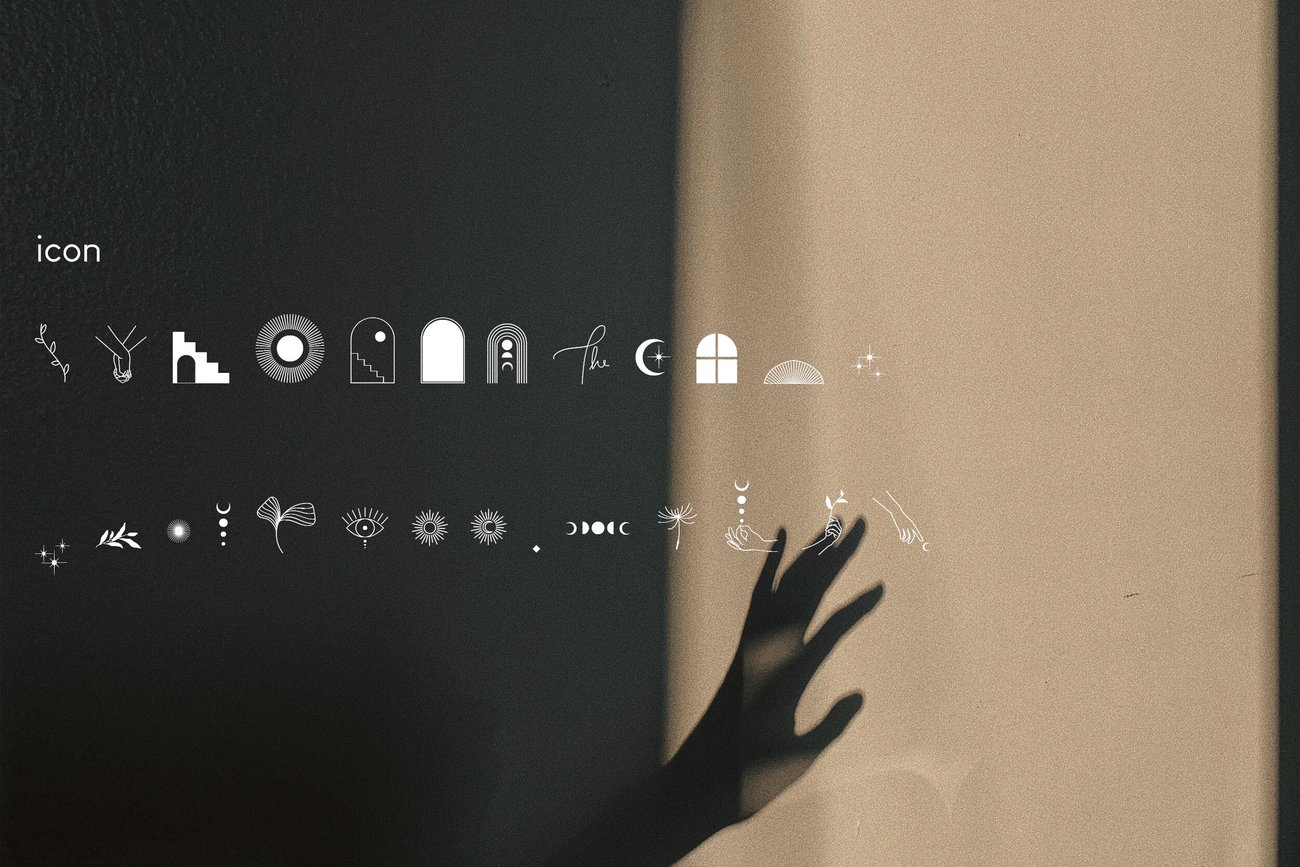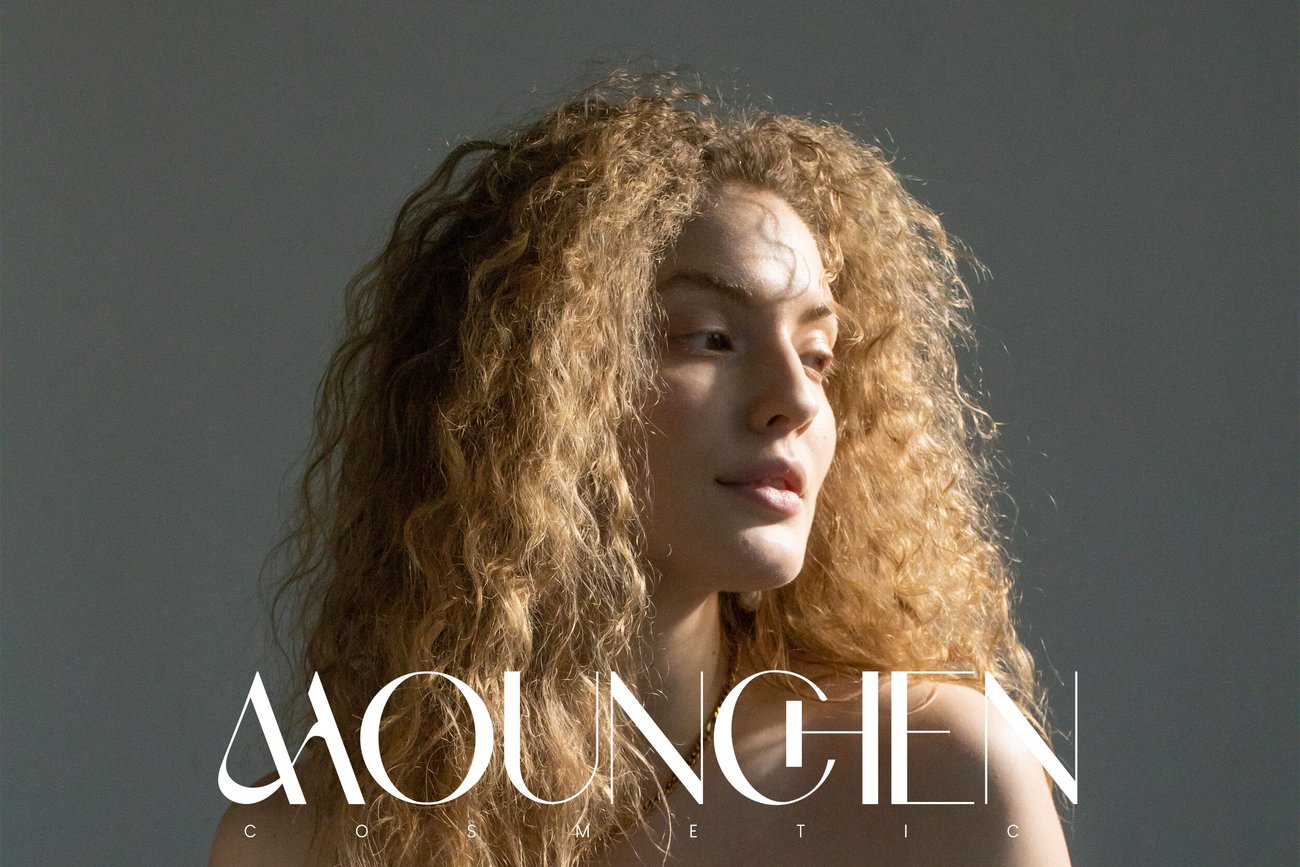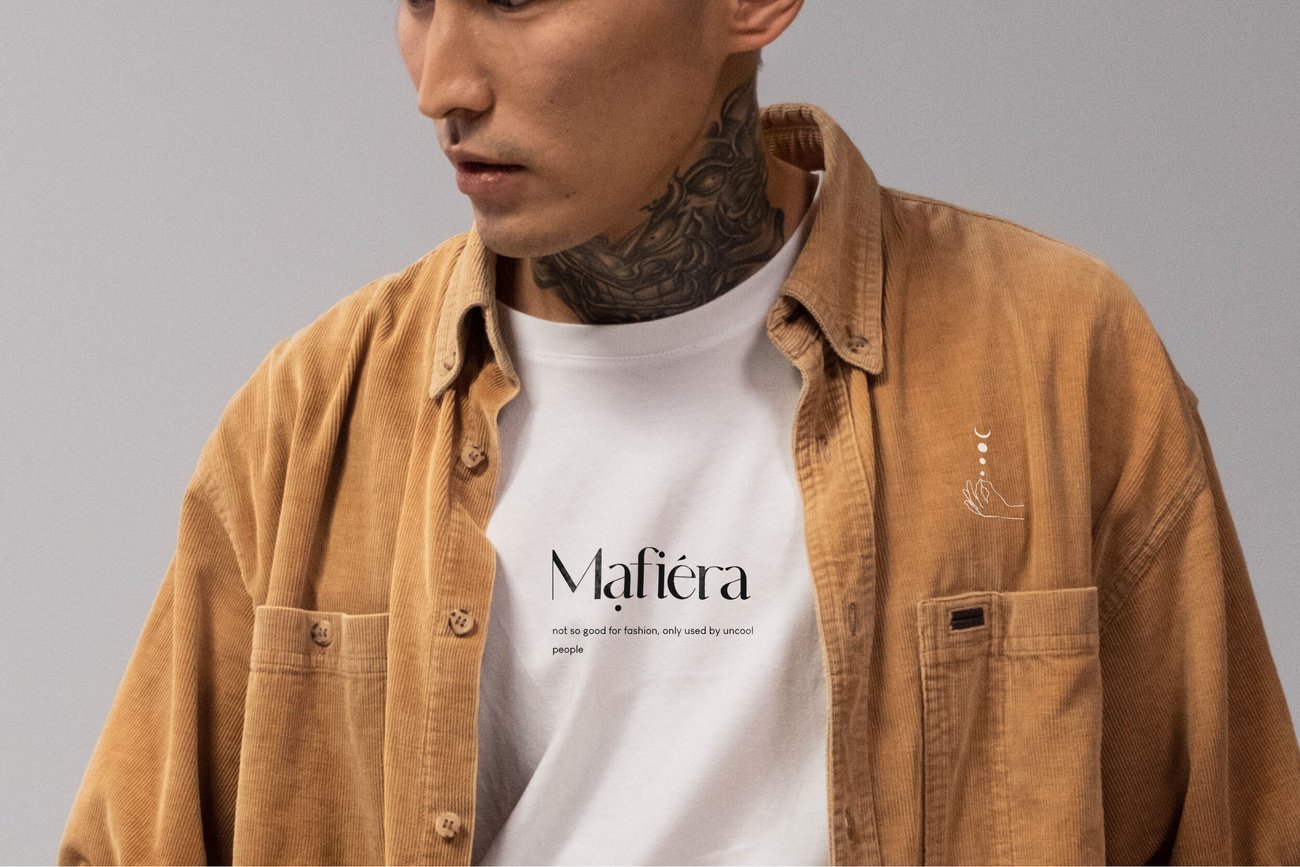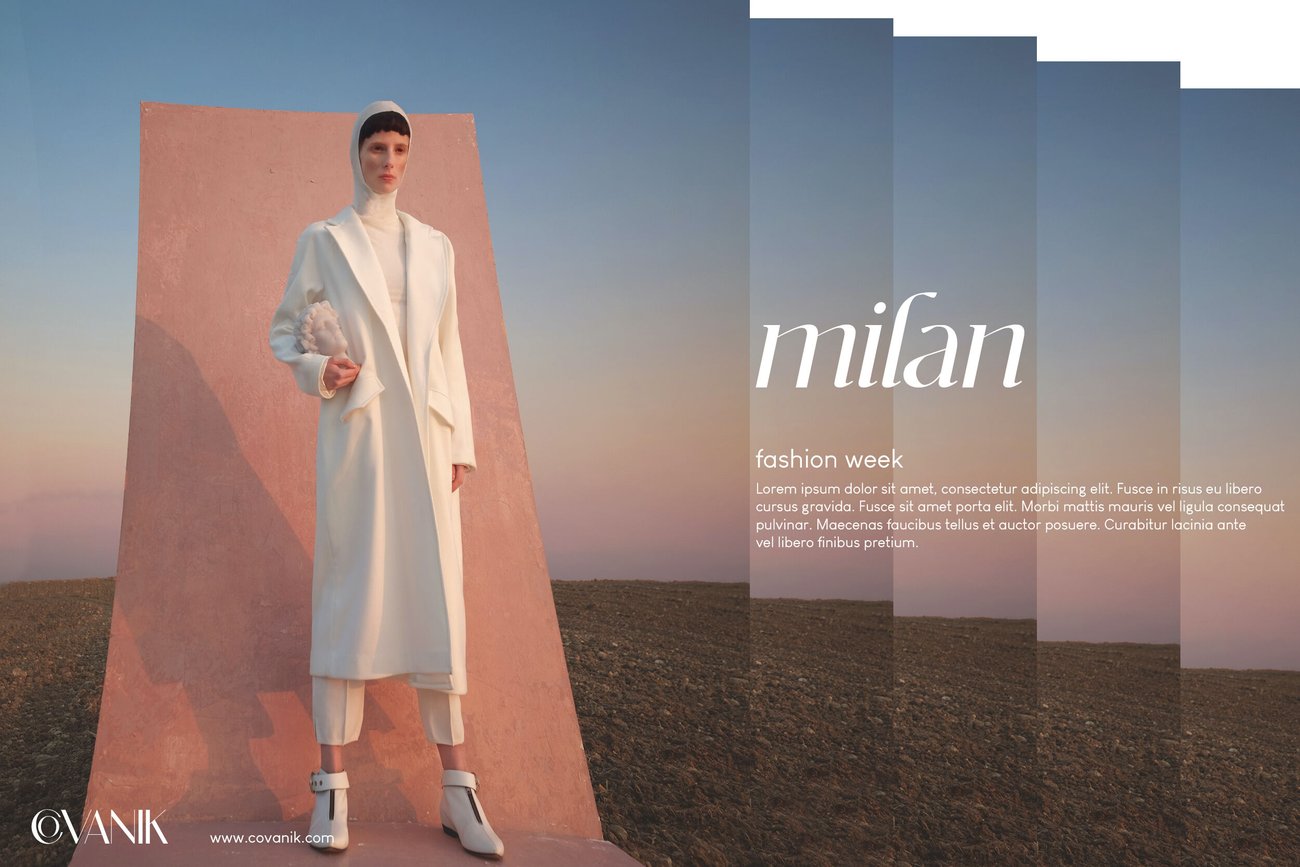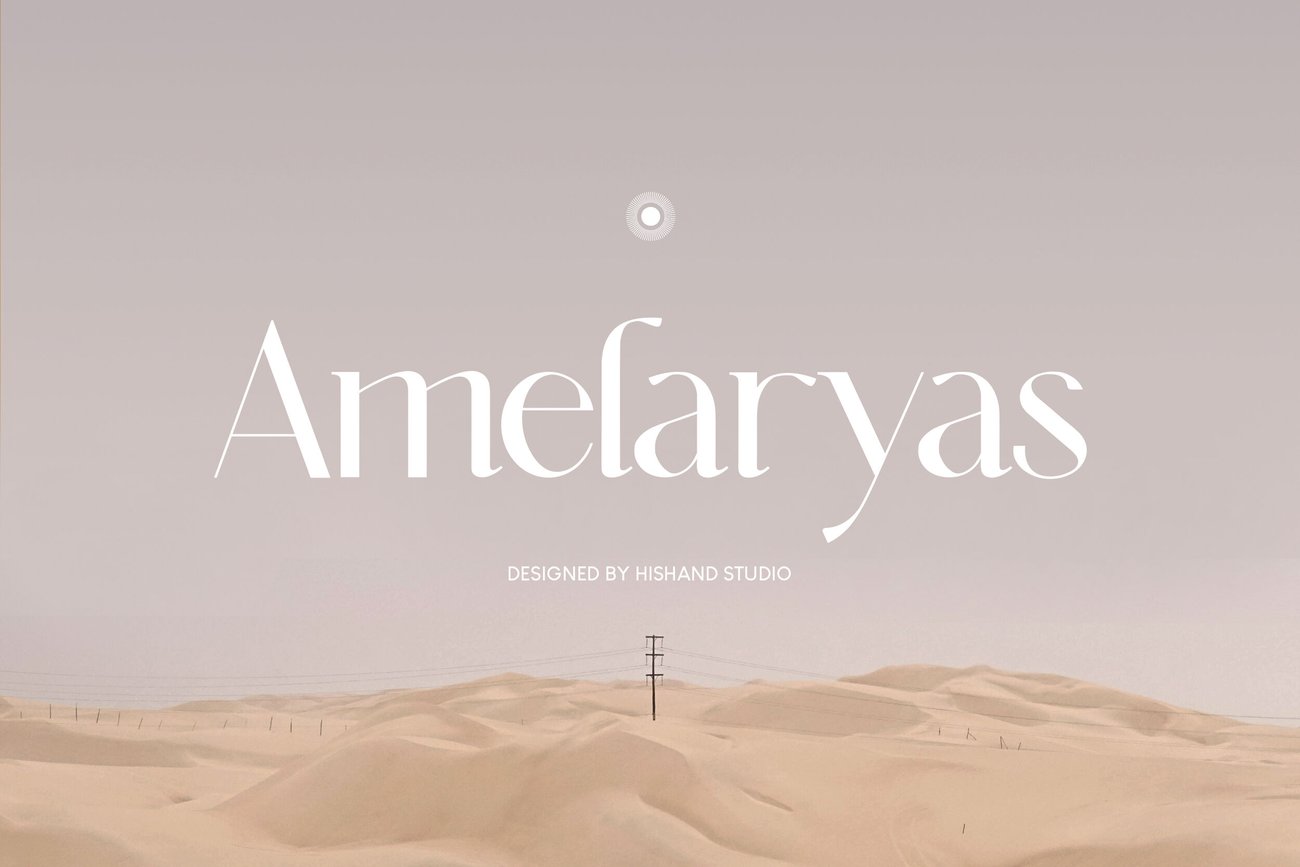
Amelaryas is beautifulserif font with elegant and premium shape that can be used for logos, branding, invitations, stationery, wedding designs, social media posts, and much more. Complete with ligatures alternates regular italic icon kerning multilingual support